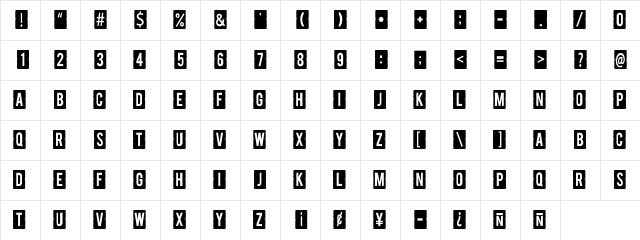
calendar note tfb Regular
| Designer | kaiserzharkhan |
Design Context for calendar note tfb Typeface
calendar note tfb offers clean, dependable letterforms without strong stylistic allegiance, making it a practical choice for designers who need flexibility.